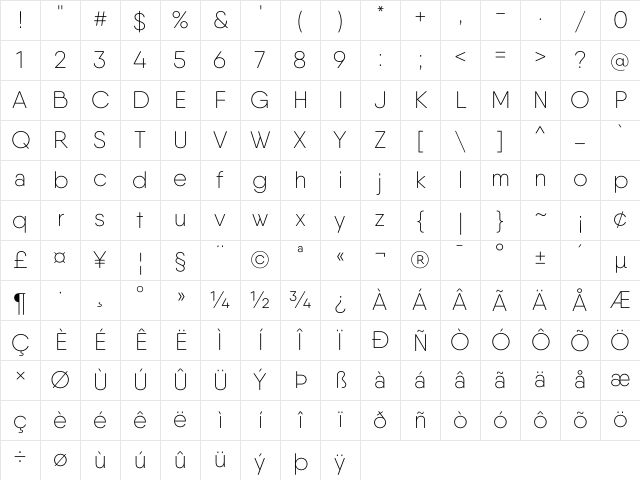
Complete Qanelas Soft UltraLight glyph index. Displaying only characters natively supported by Qanelas Soft UltraLight font.
Qanelas Soft is a composed and adaptable typeface that performs quietly and consistently across a wide range of design contexts. Its slender proportions lend an understated elegance to any composition.